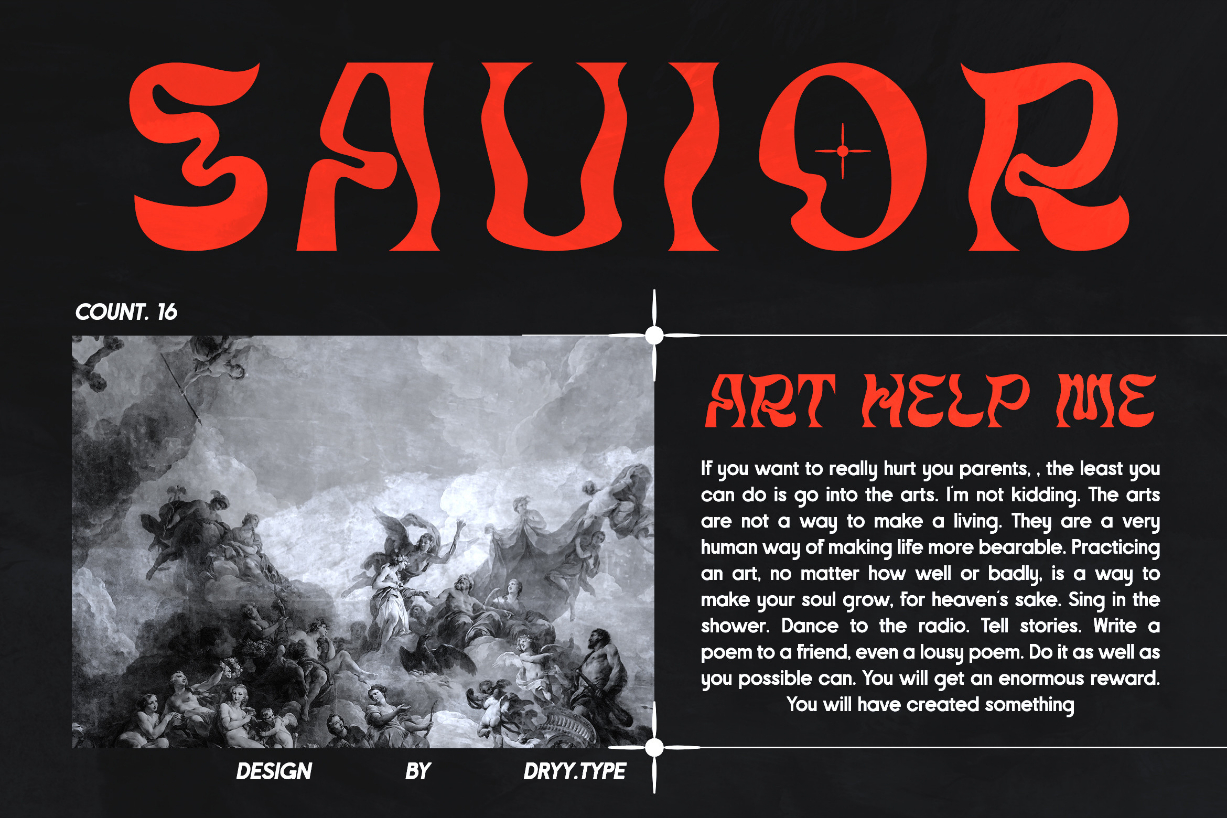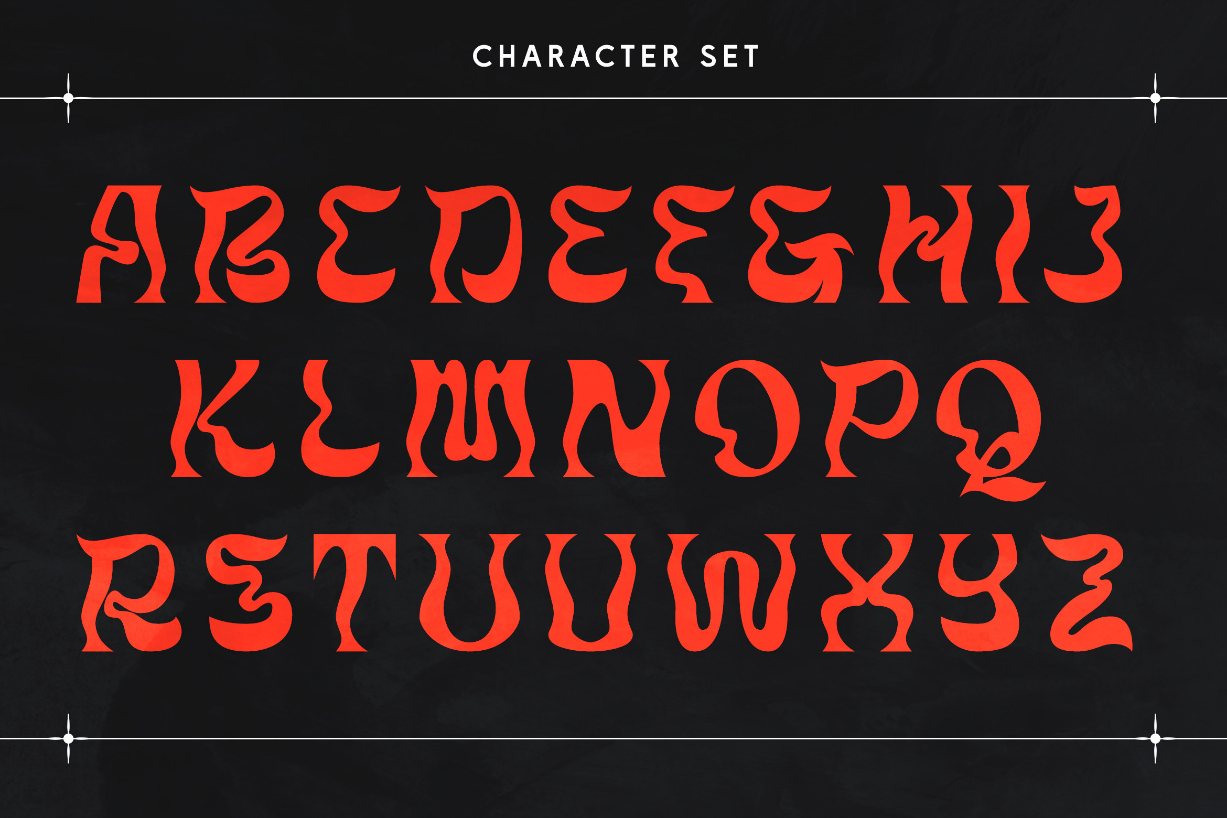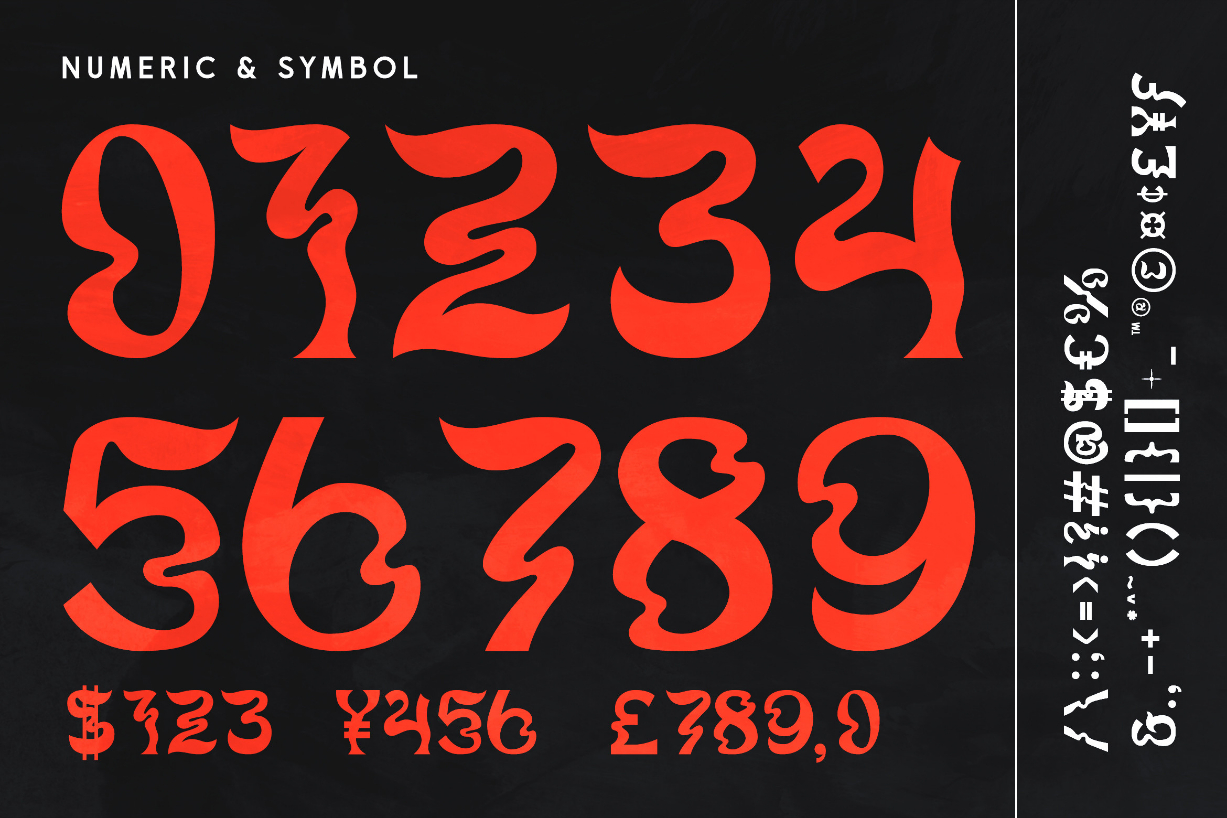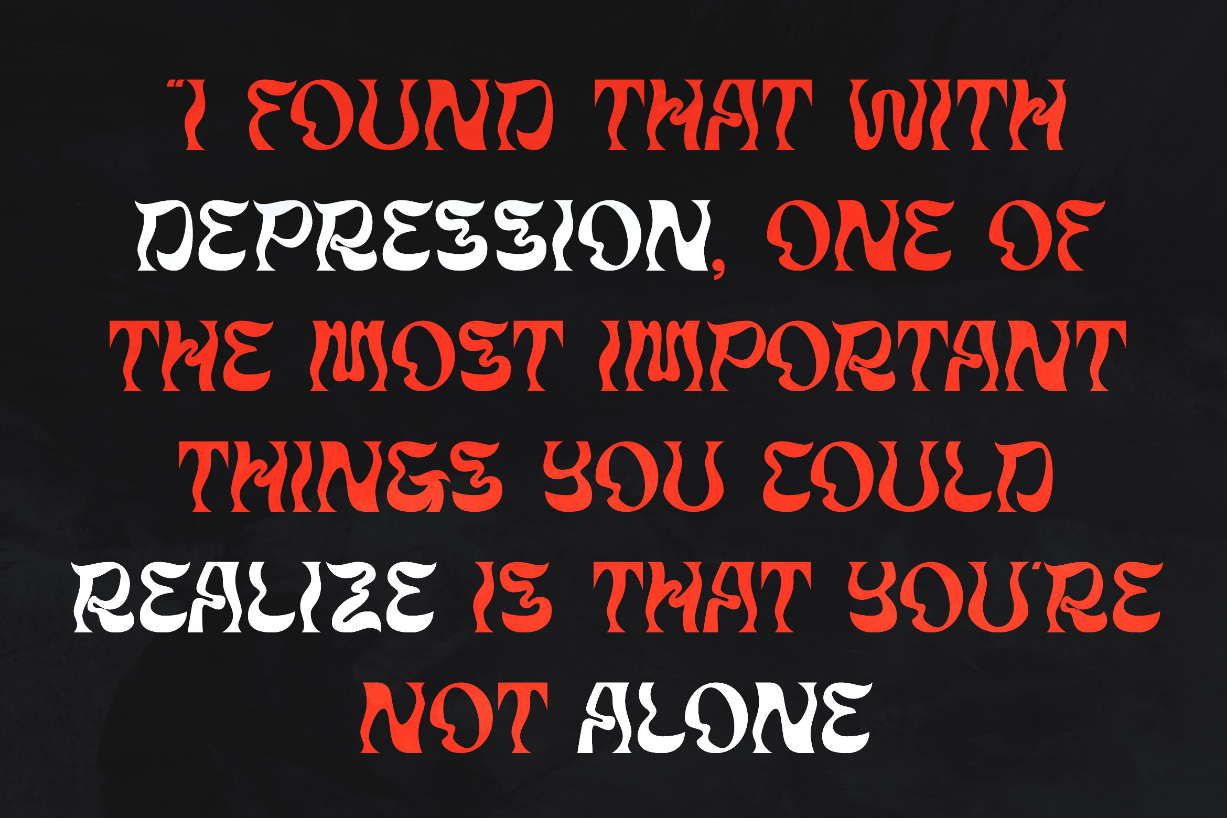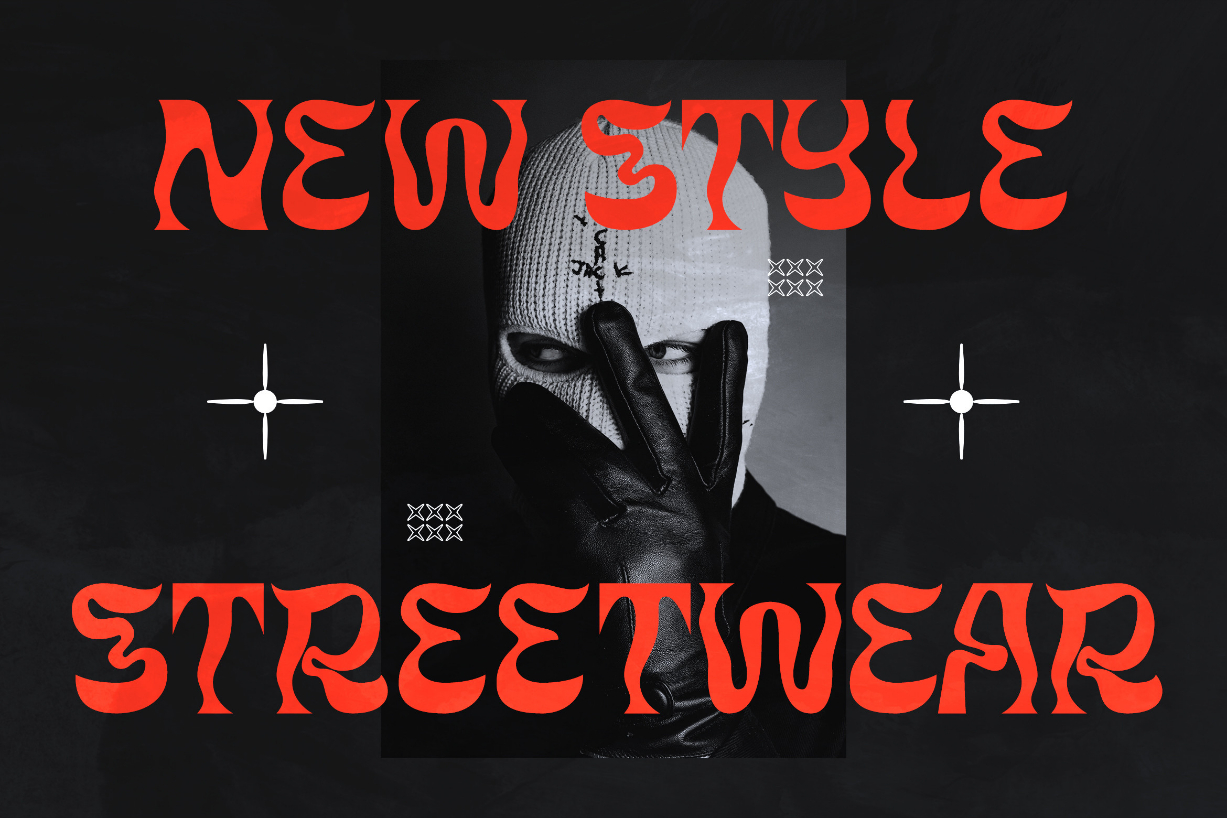
Quiet Sounds Font
About Quiet Sounds Font
Quiet Sounds is an impactful and unique display font that’s sure to make a statement. Its bold letterforms and striking angles give it a distinct personality that will stand out in any design. Use the font for headlines, posters, or anything that needs a touch of boldness and uniqueness.